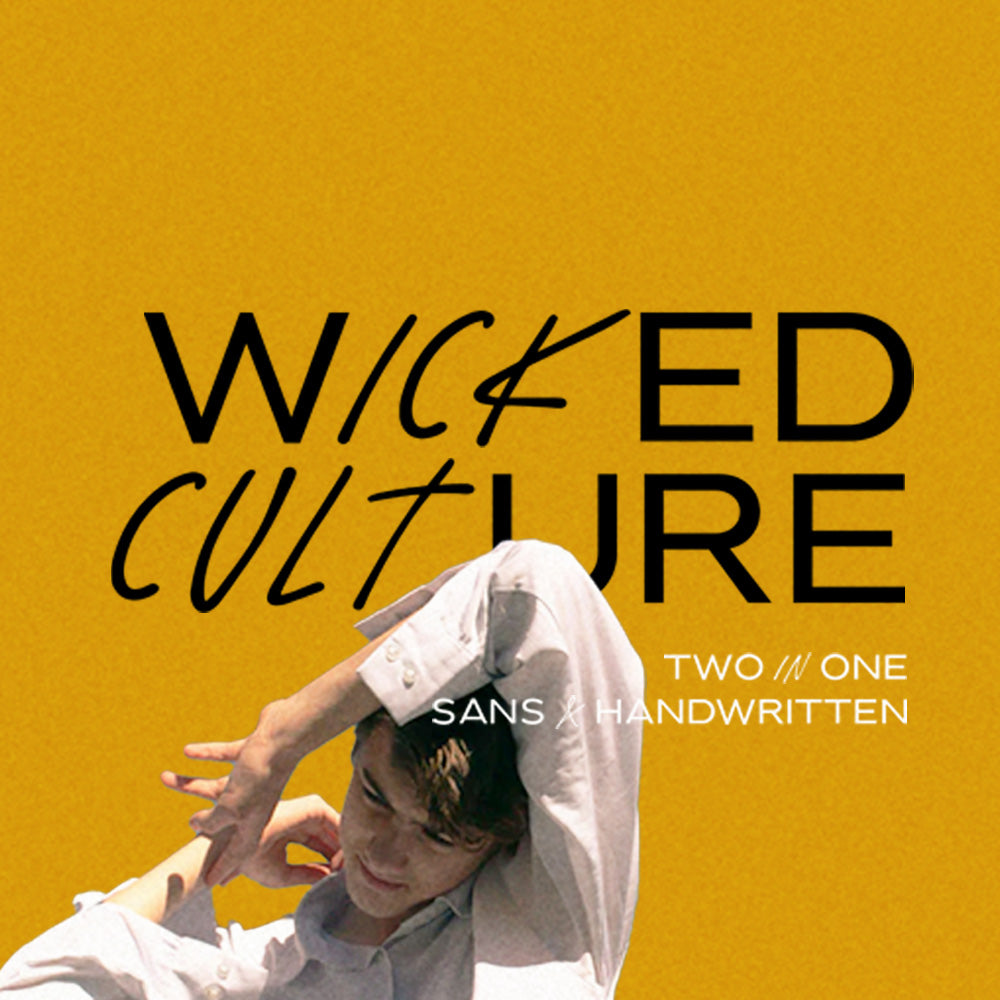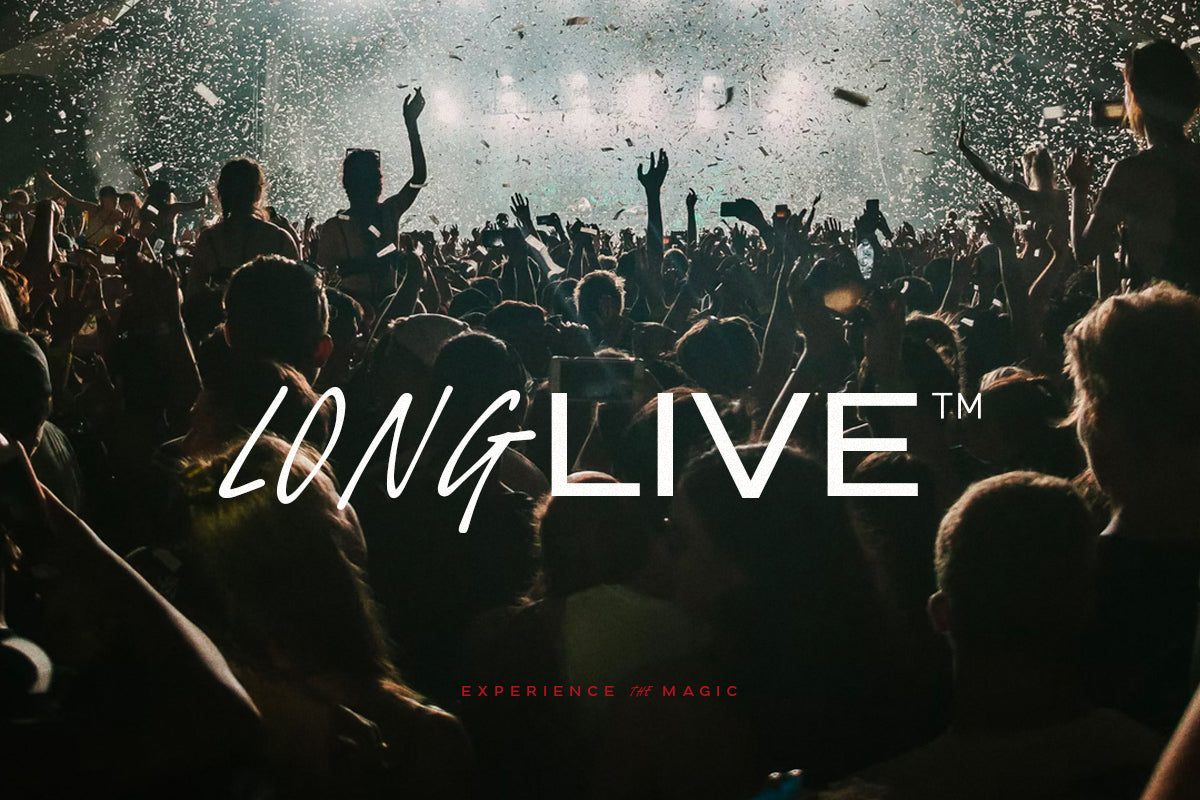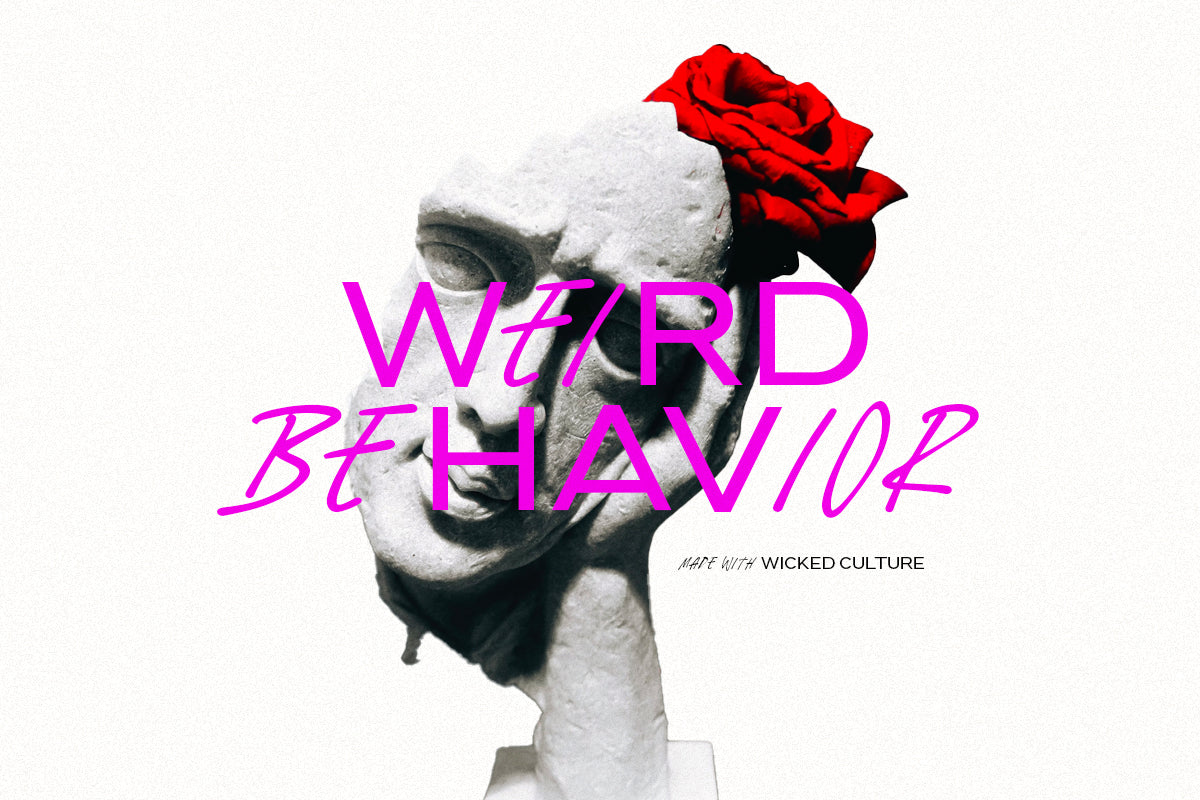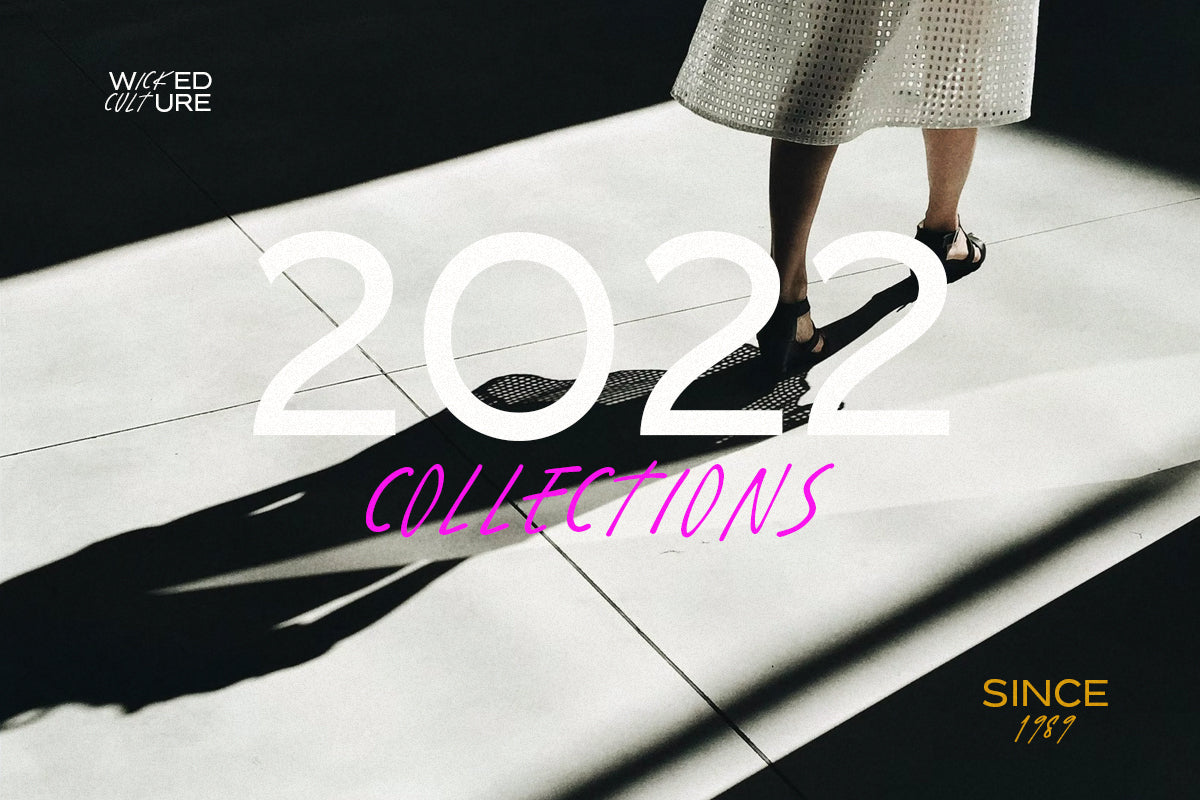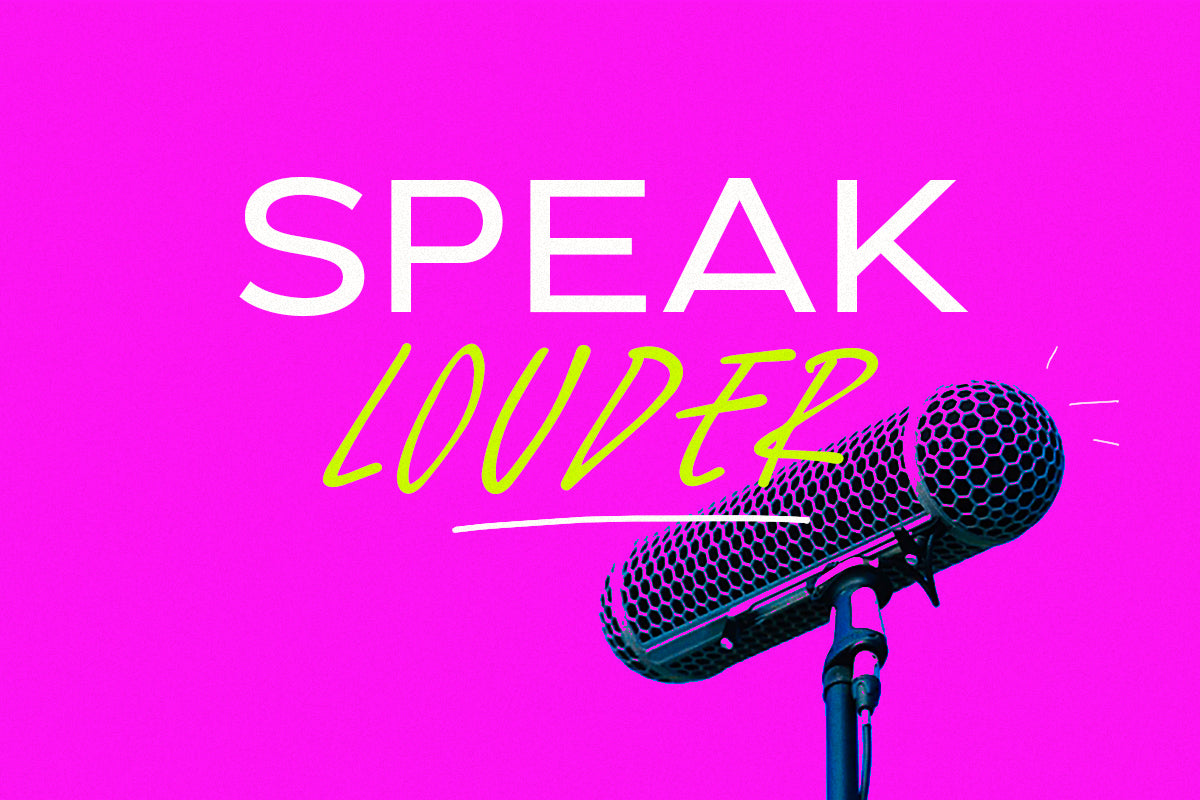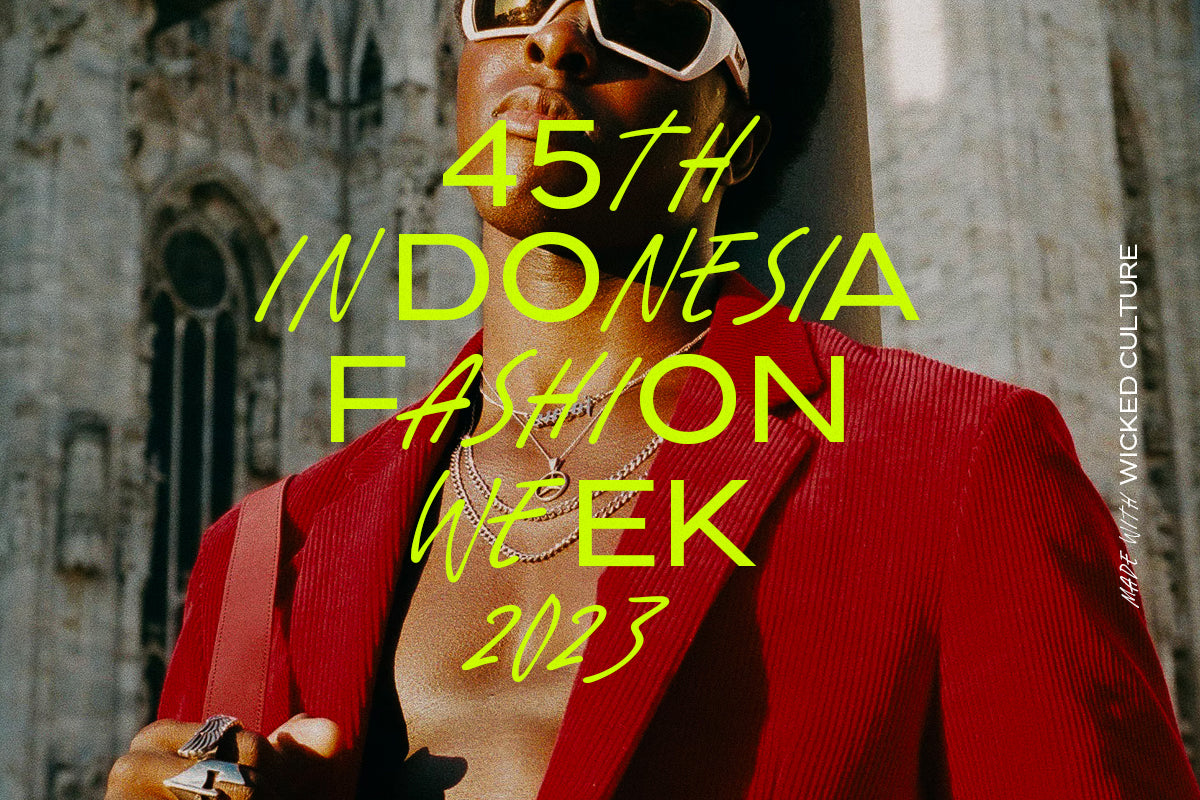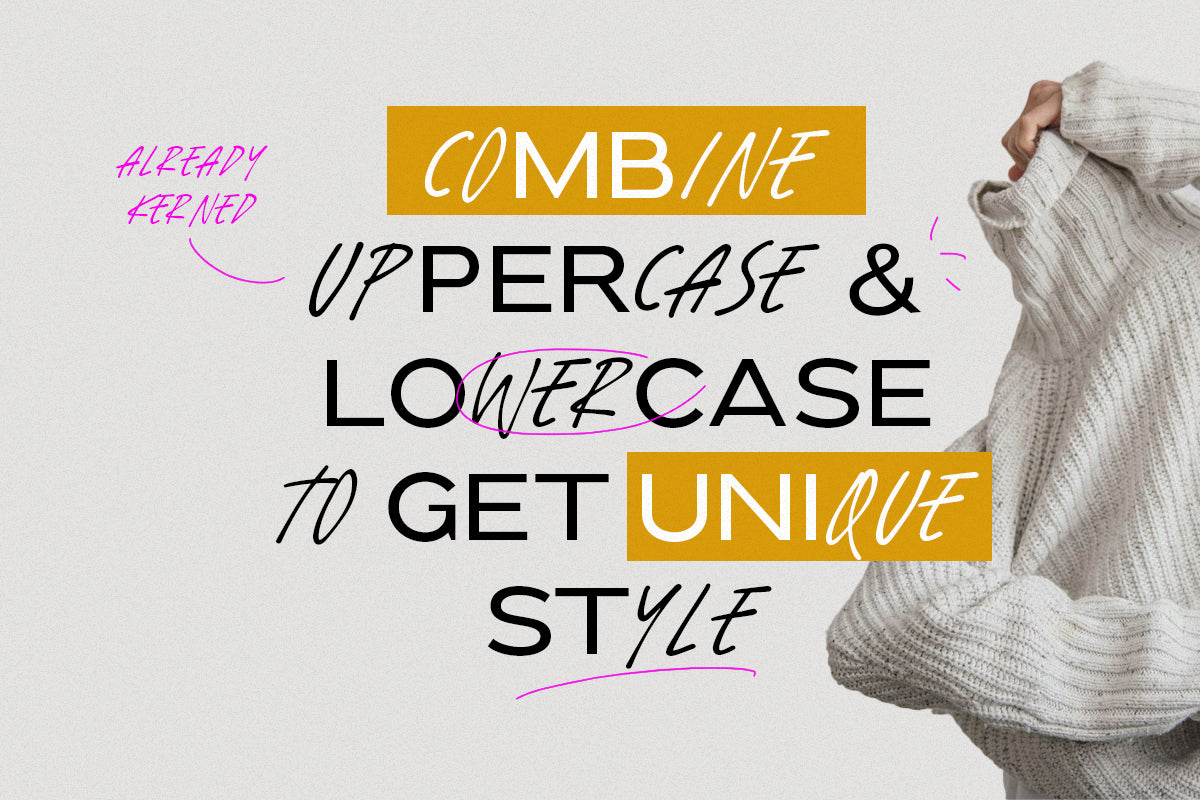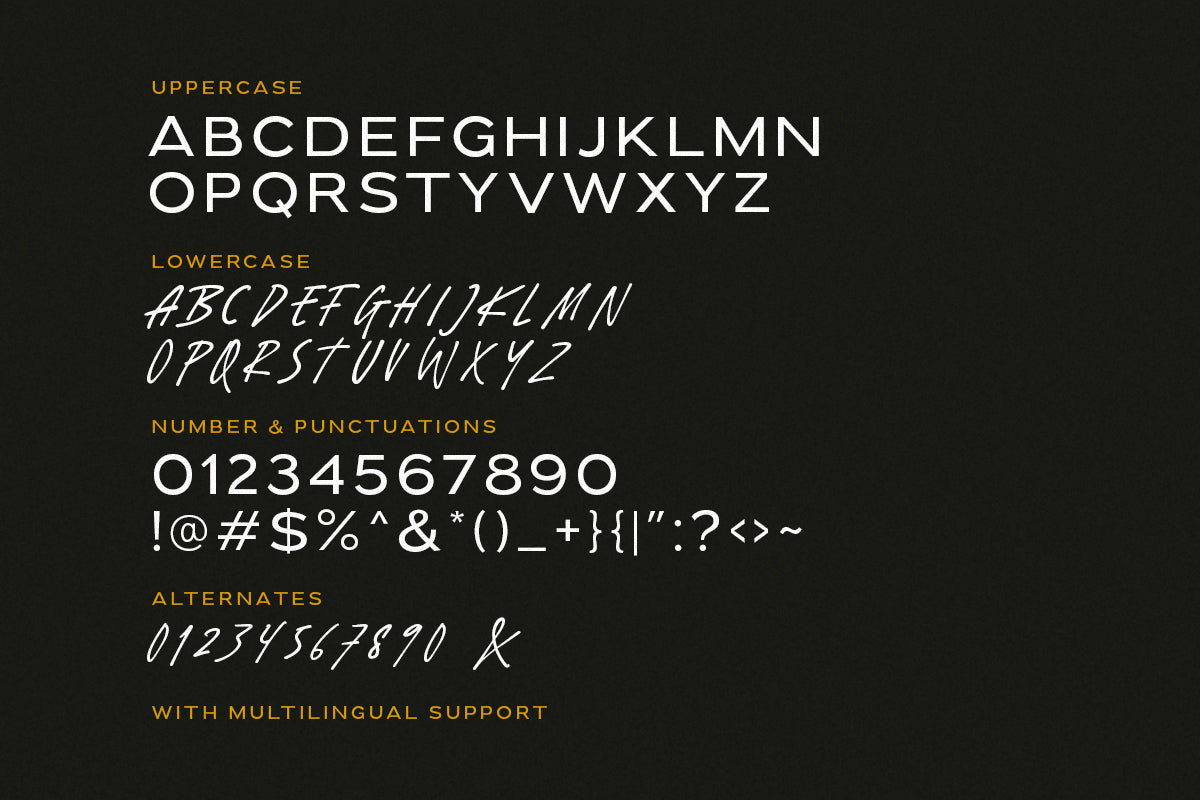
Wicked Culture - 2 IN 1 FONT
Wicked Culture - 2 IN 1 FONT is a modern font that combines a sans serif uppercase typeface with a handwritten lowercase style, allowing for mixed usage within the same word. This font supports multiple languages and is suitable for various design applications.